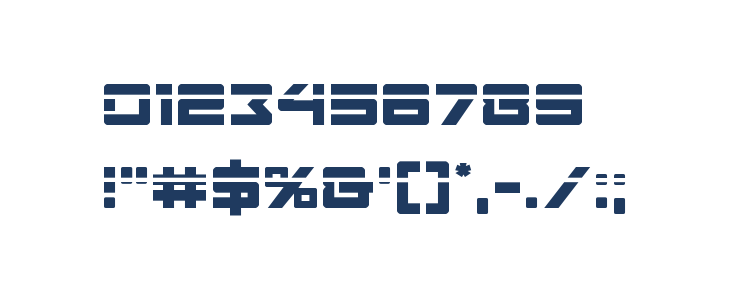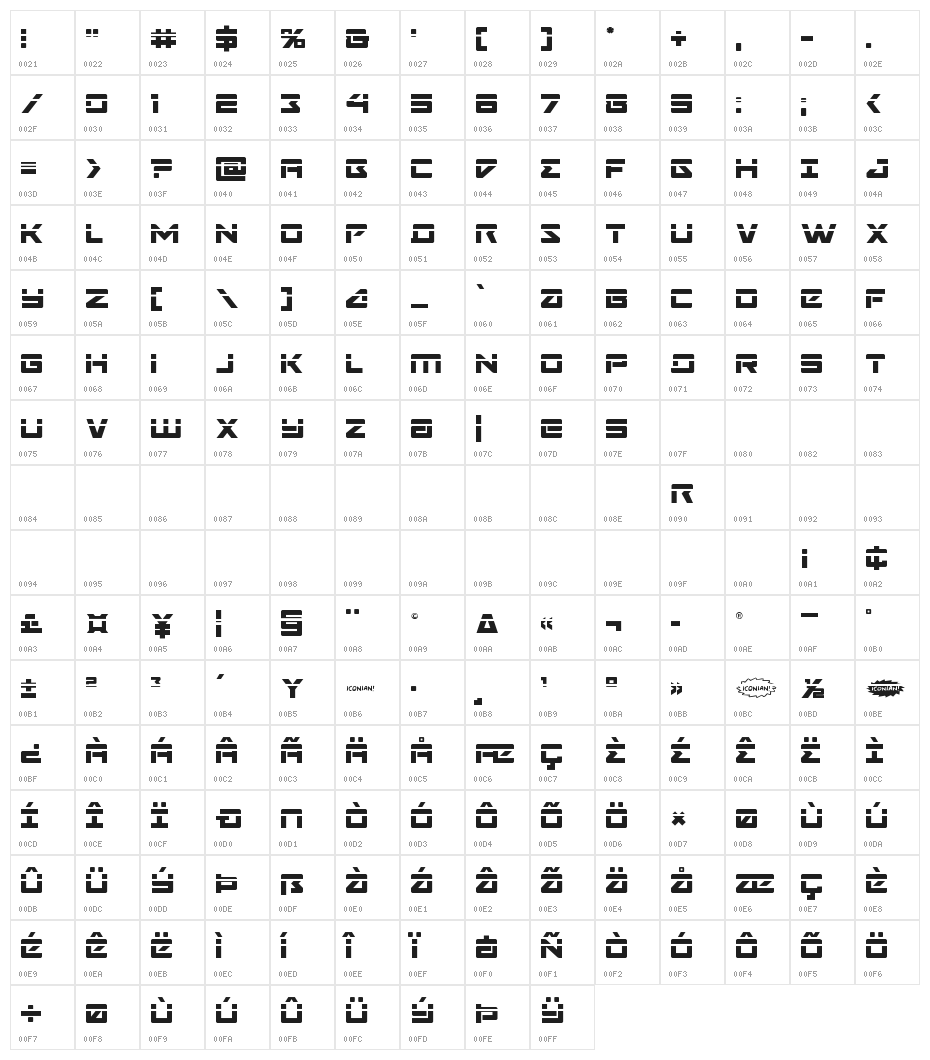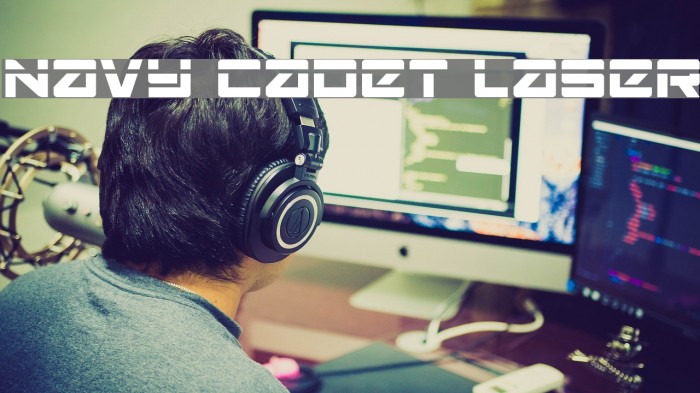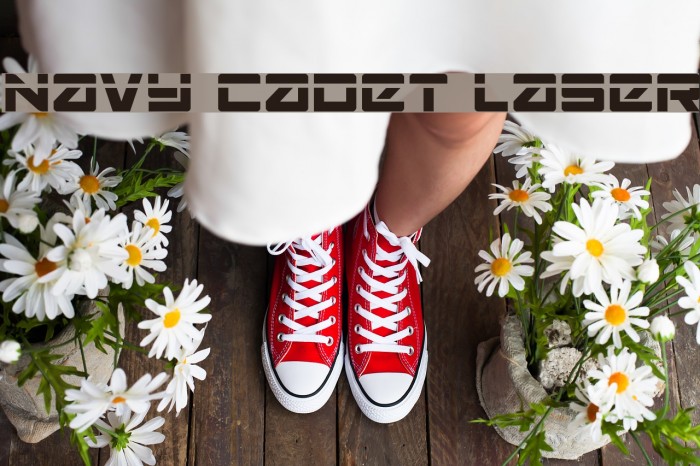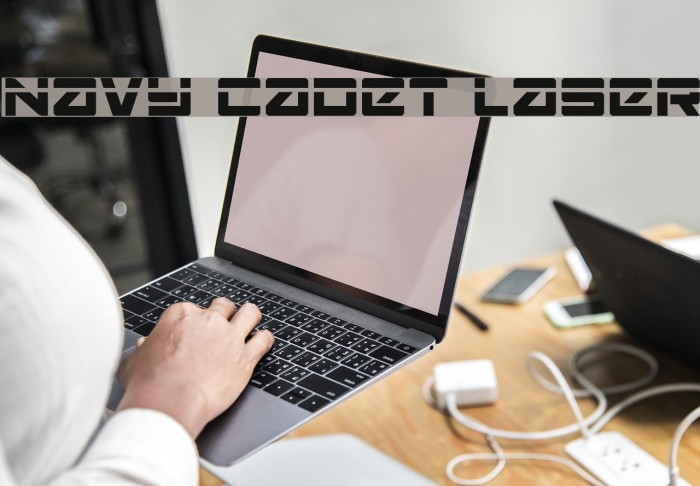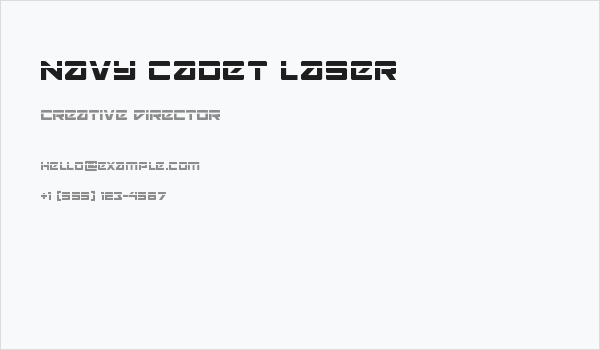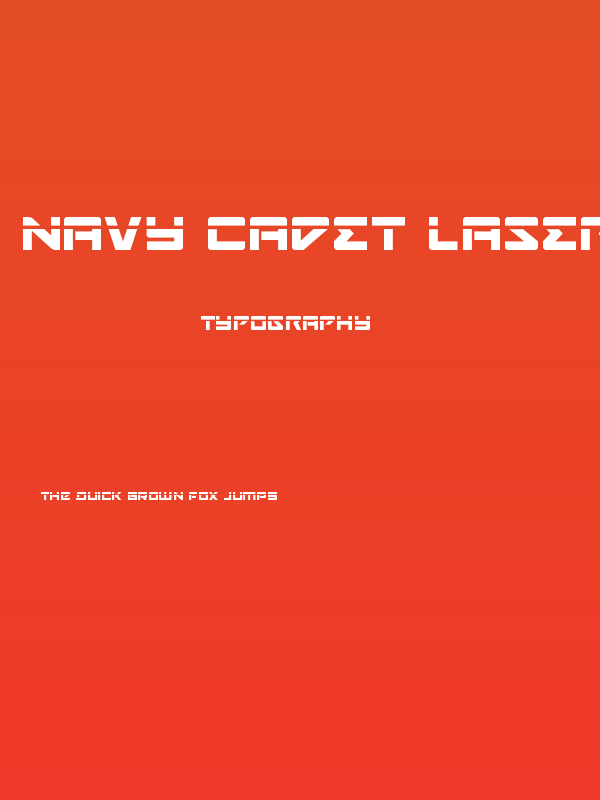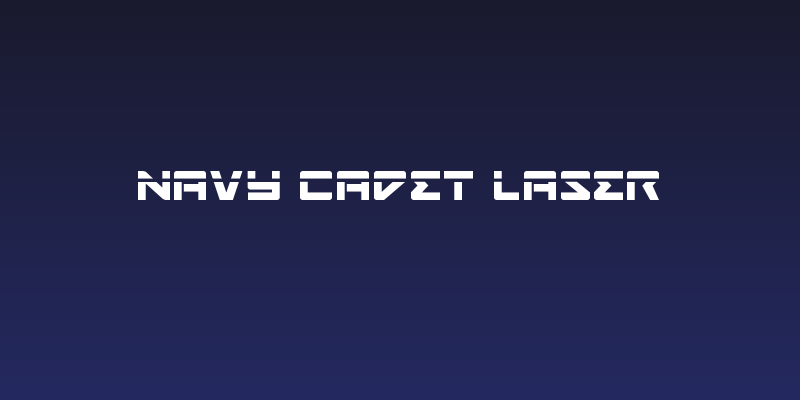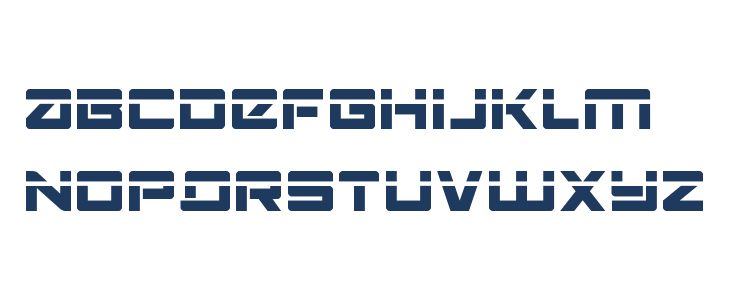
Navy Cadet Laser Font
Navy Cadet Laser Description
This font features a futuristic and geometric design, characterized by sharp angles and a bold presence. The uppercase and lowercase letters share a consistent style, with a strong emphasis on horizontal and vertical lines. The numerals and special characters maintain the same angular aesthetic, making the font suitable for modern and tech-oriented projects. The overall appearance is striking and memorable, with a unique blend of rigidity and style that stands out in any design context.
| Proposed Projects | Ideal for sci-fi themed designs, technology branding, video game titles, and modern posters. |